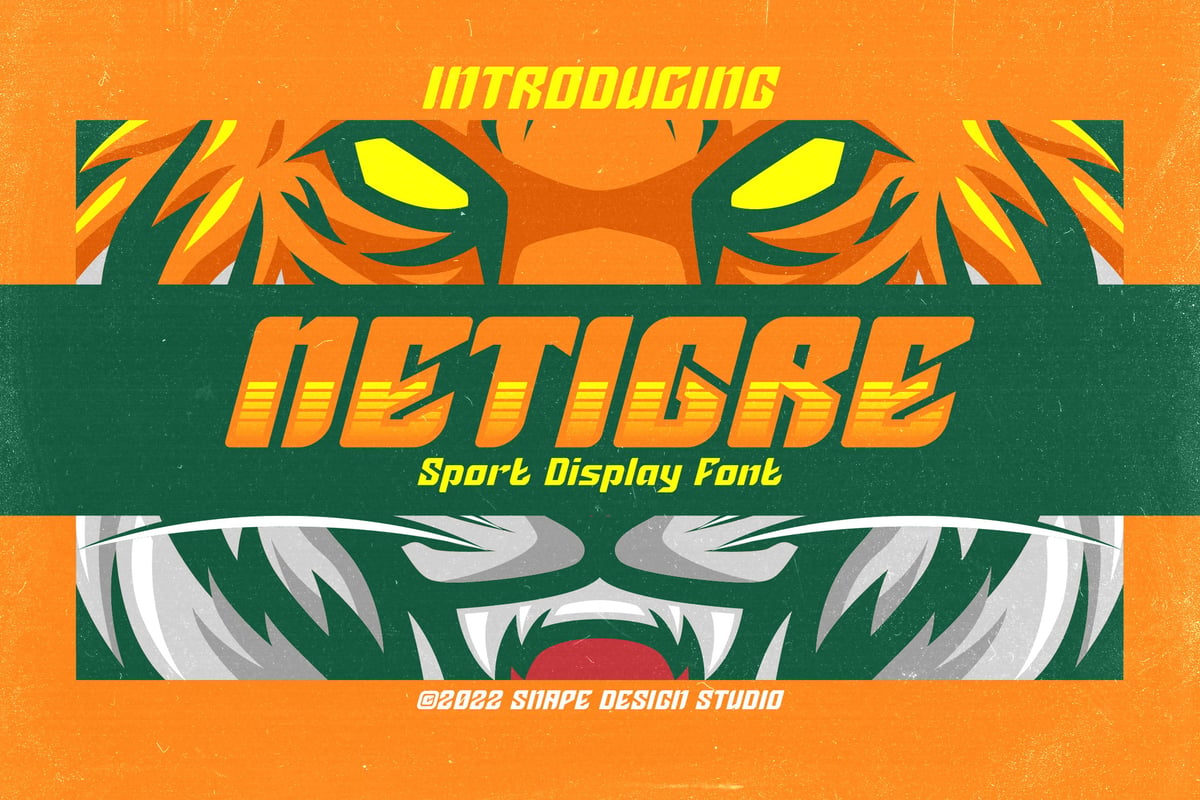
Netigre - Sport Font
Make your sports designs roar with power using this bold, attention-grabbing athletic typeface. Netigre is a commanding font engineered to deliver maximum visual impact for any project demanding a bold, powerful aesthetic. This dynamic typeface brings vibrant energy to sport-inspired designs, making it the perfect choice for teams, leagues, and competitive branding. Ideal applications include: Sport team logos and jerseys League and tournament branding Movie titles and documentaries Game interfa...